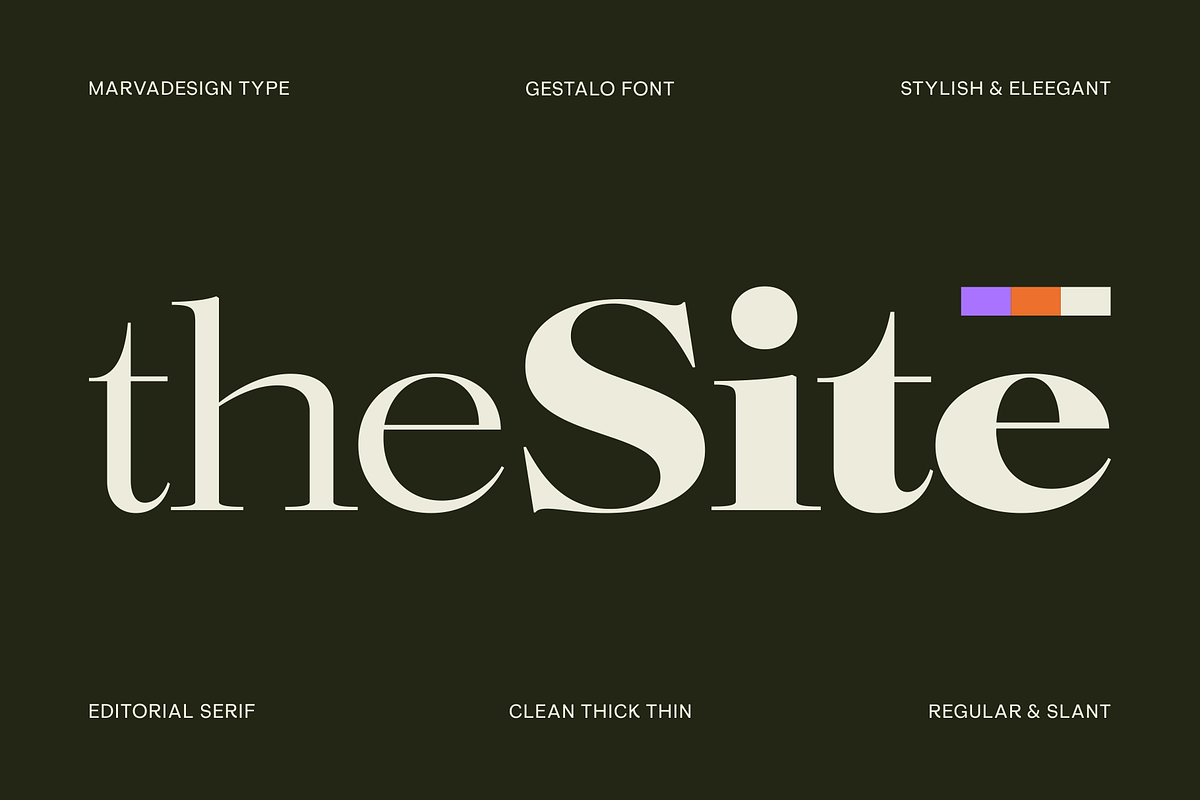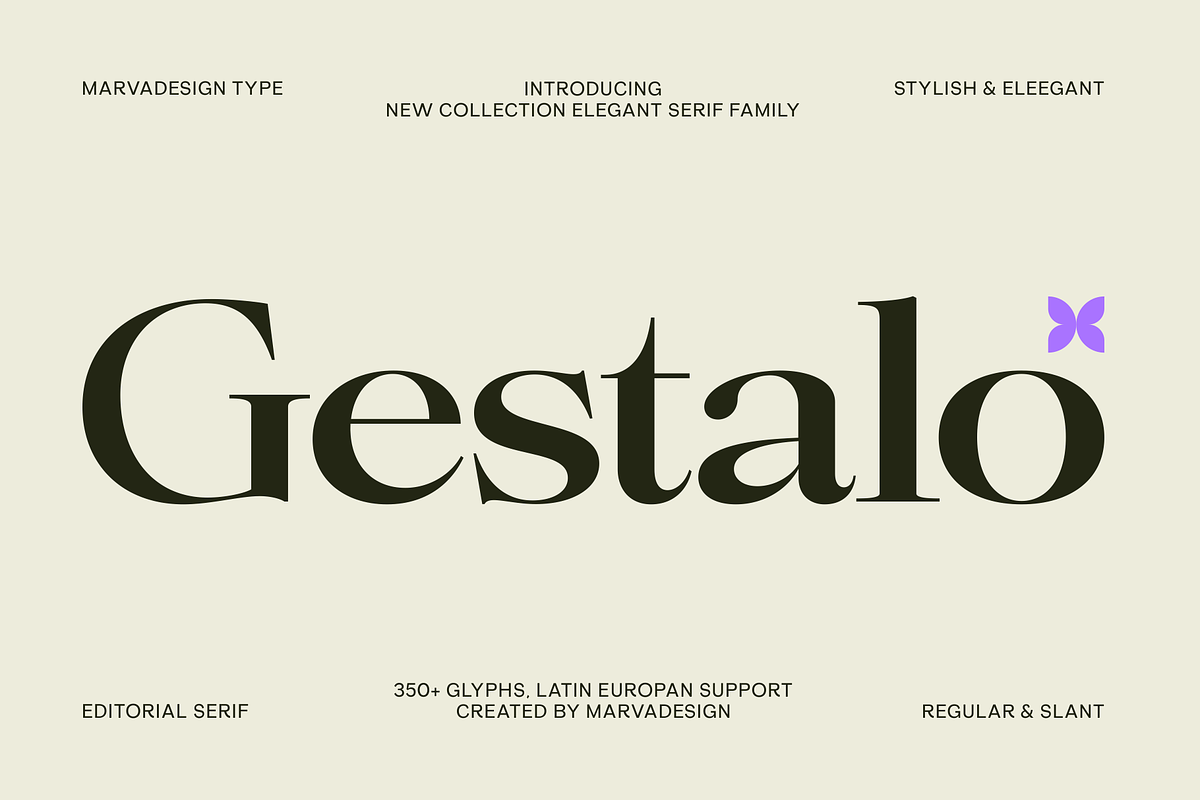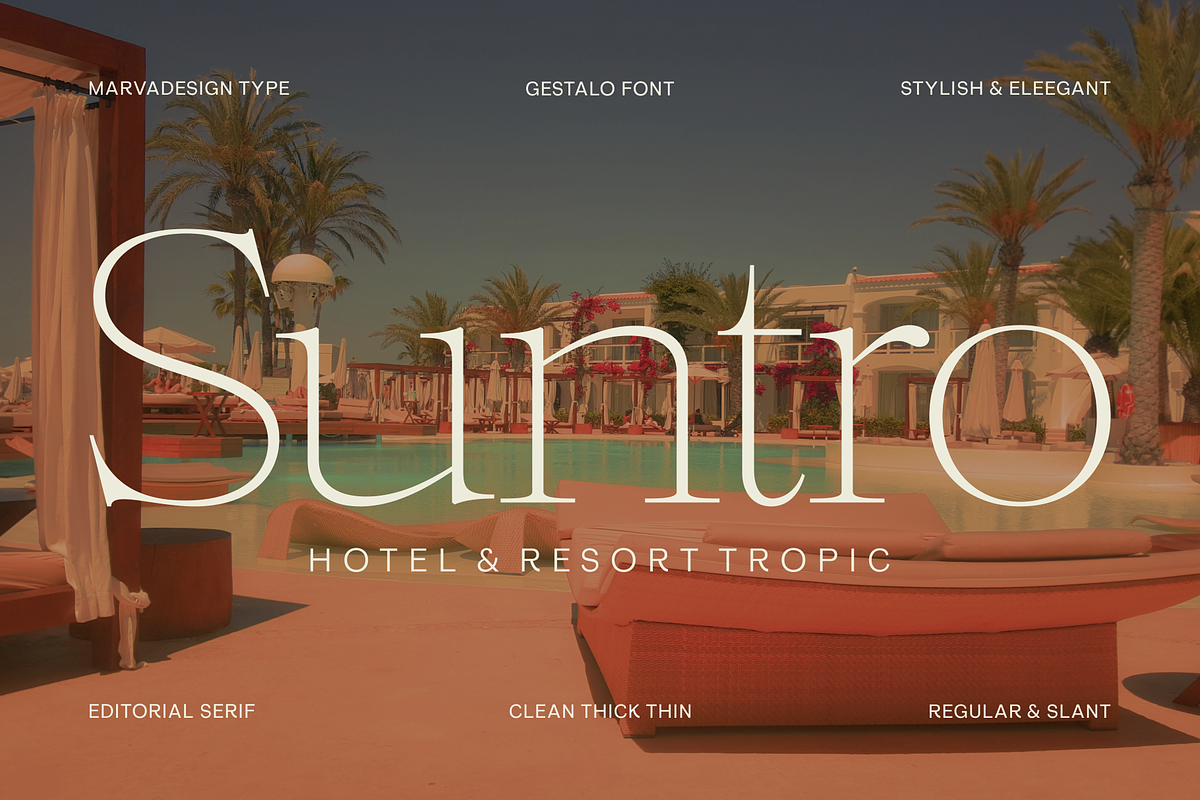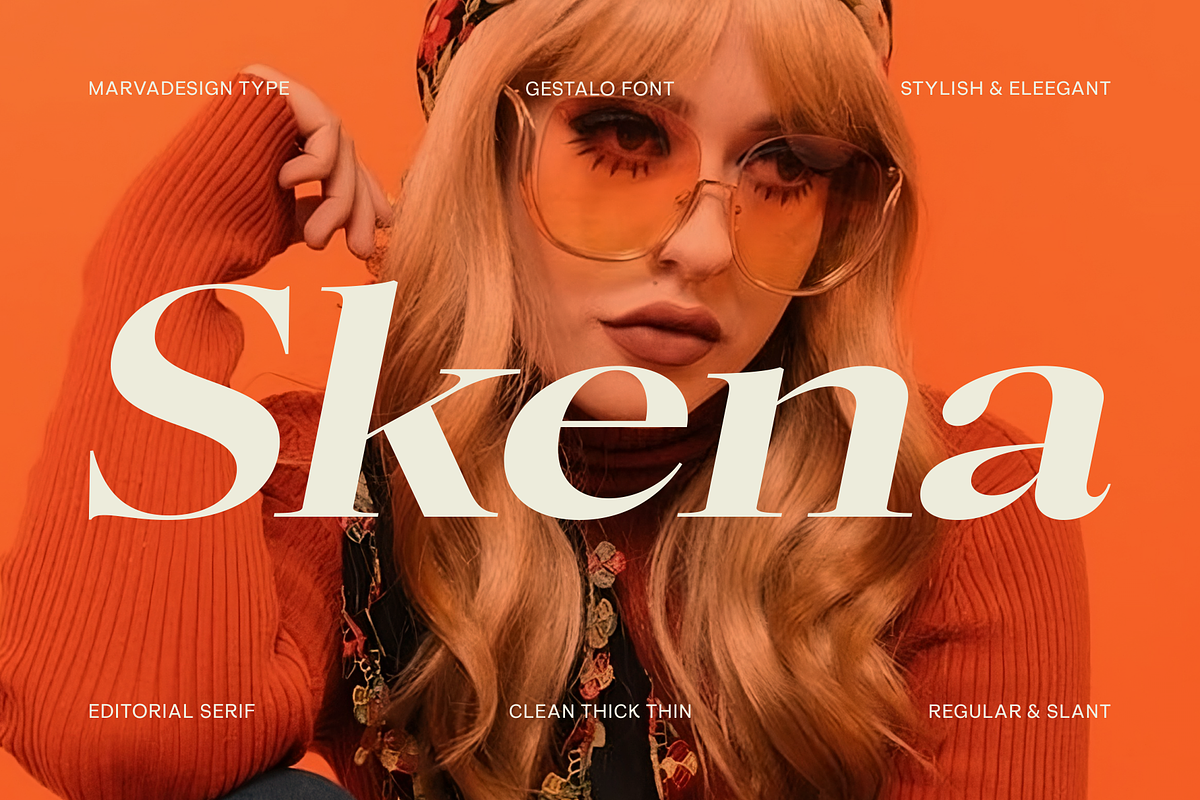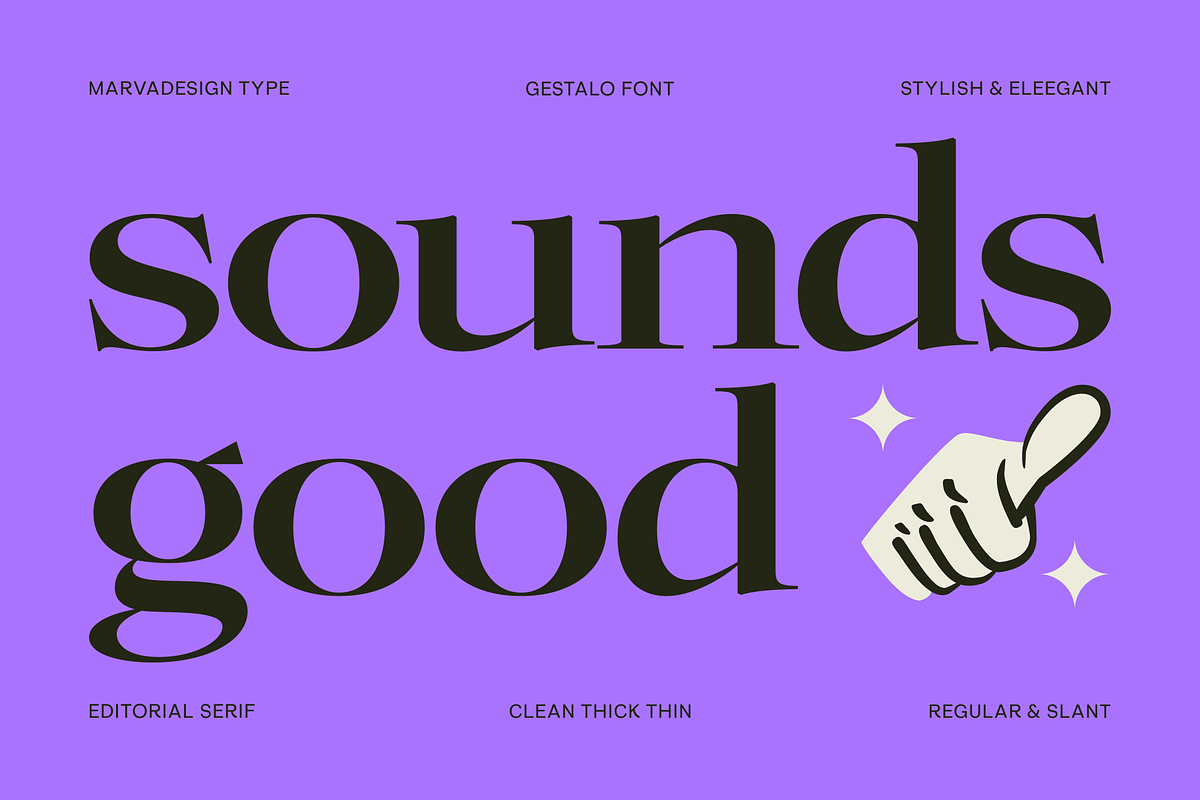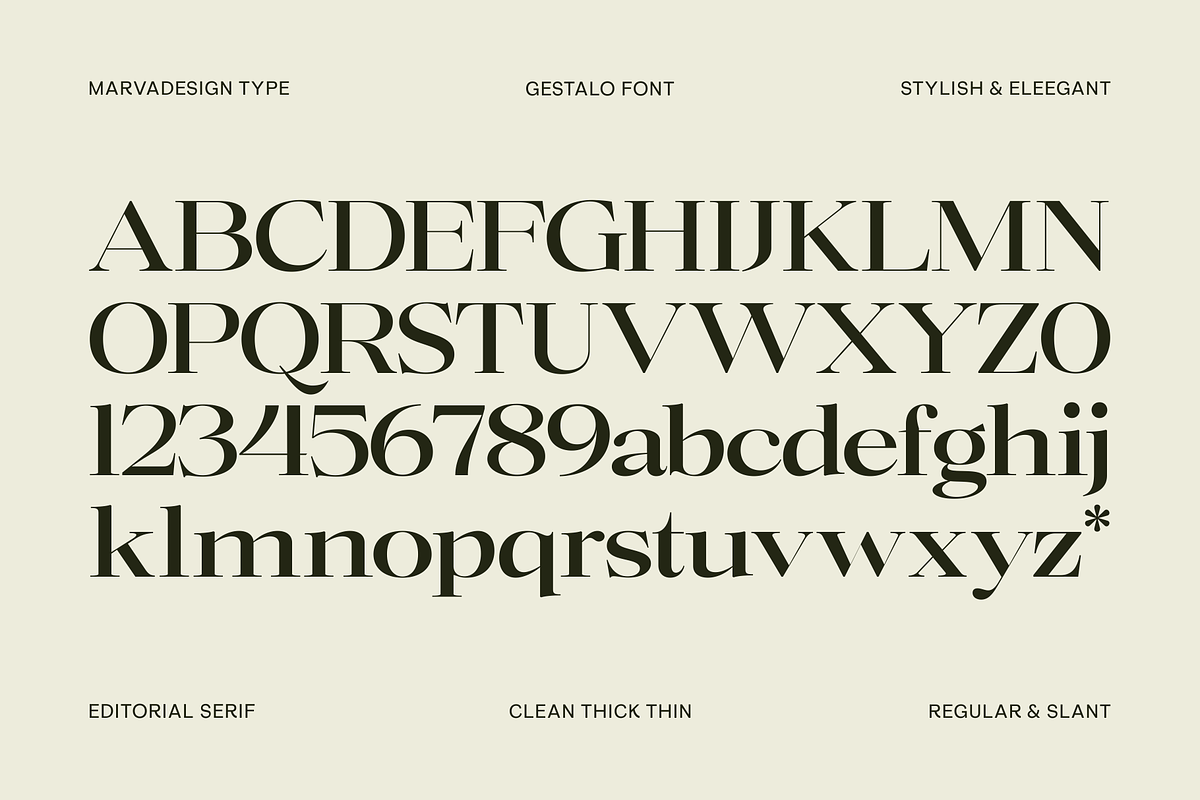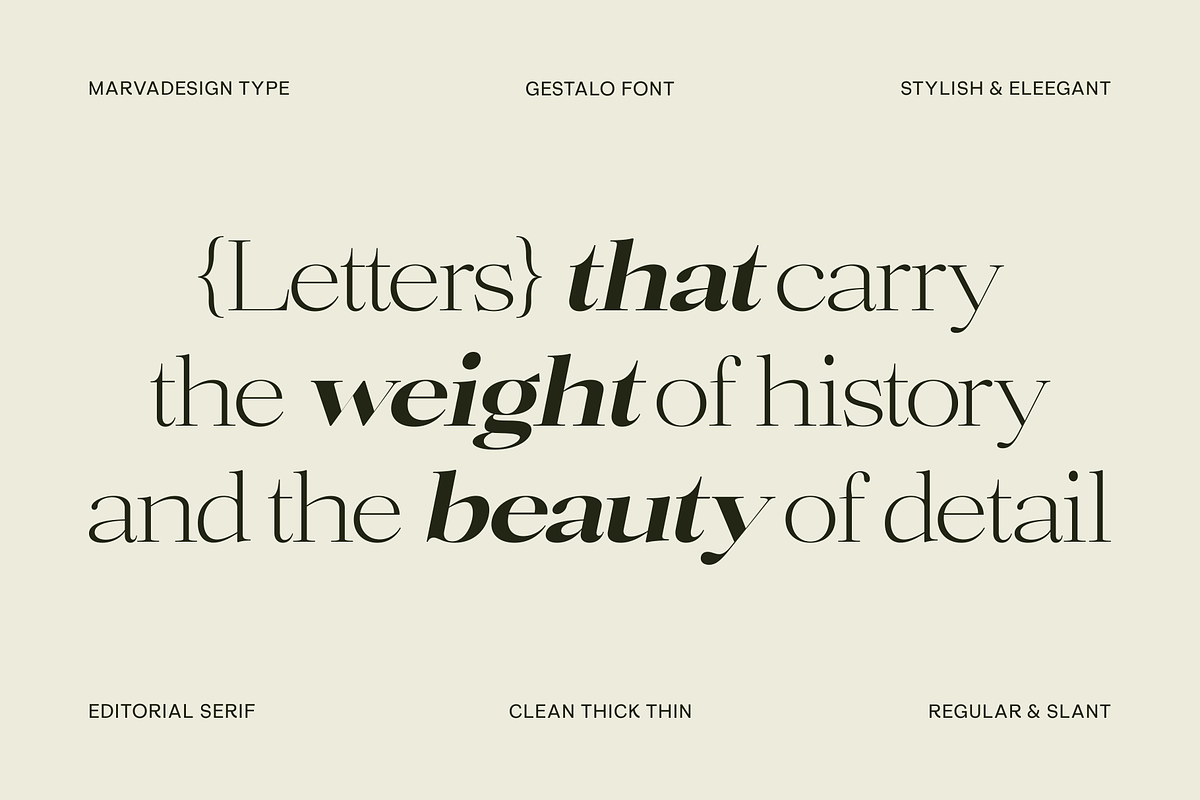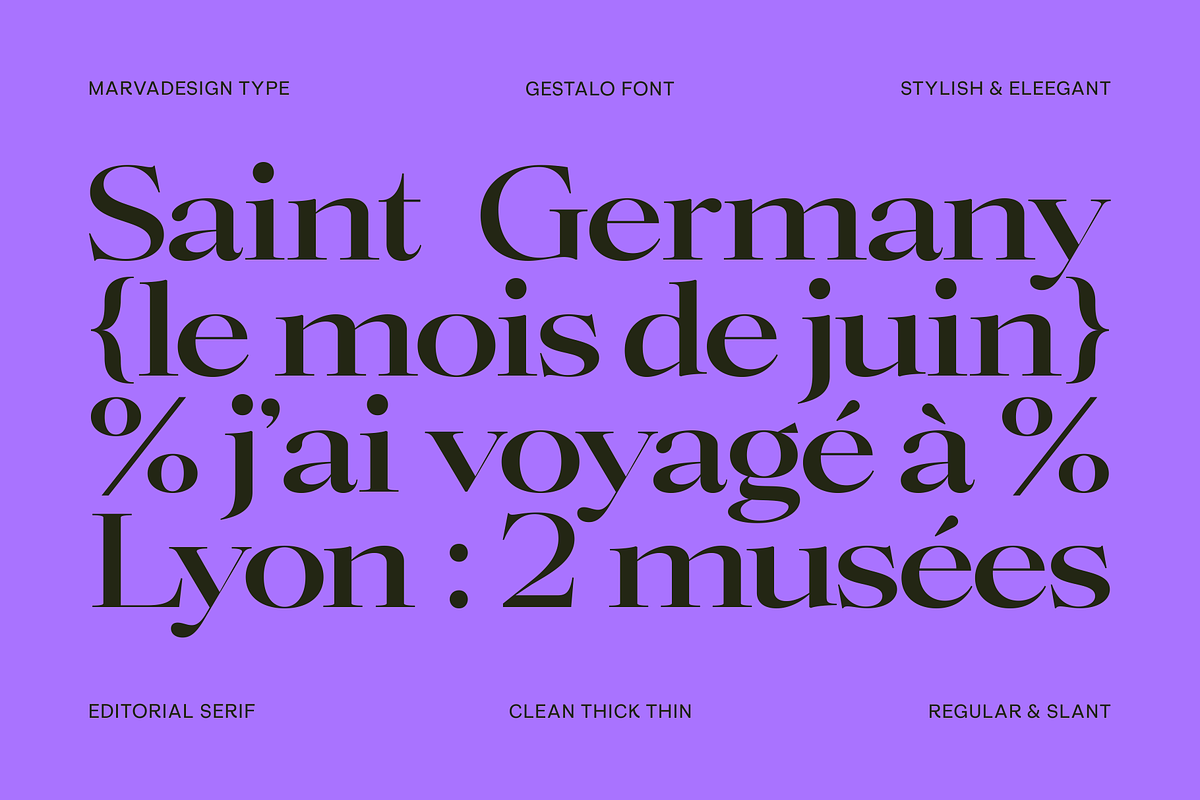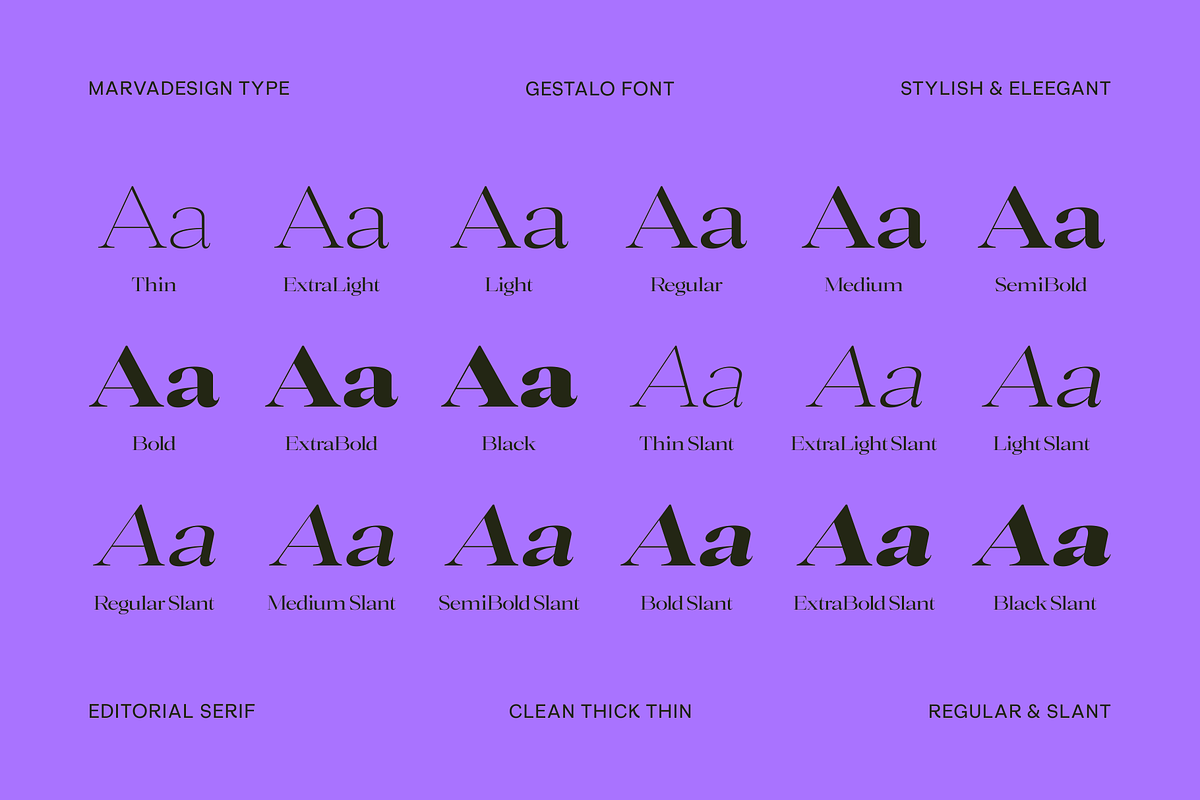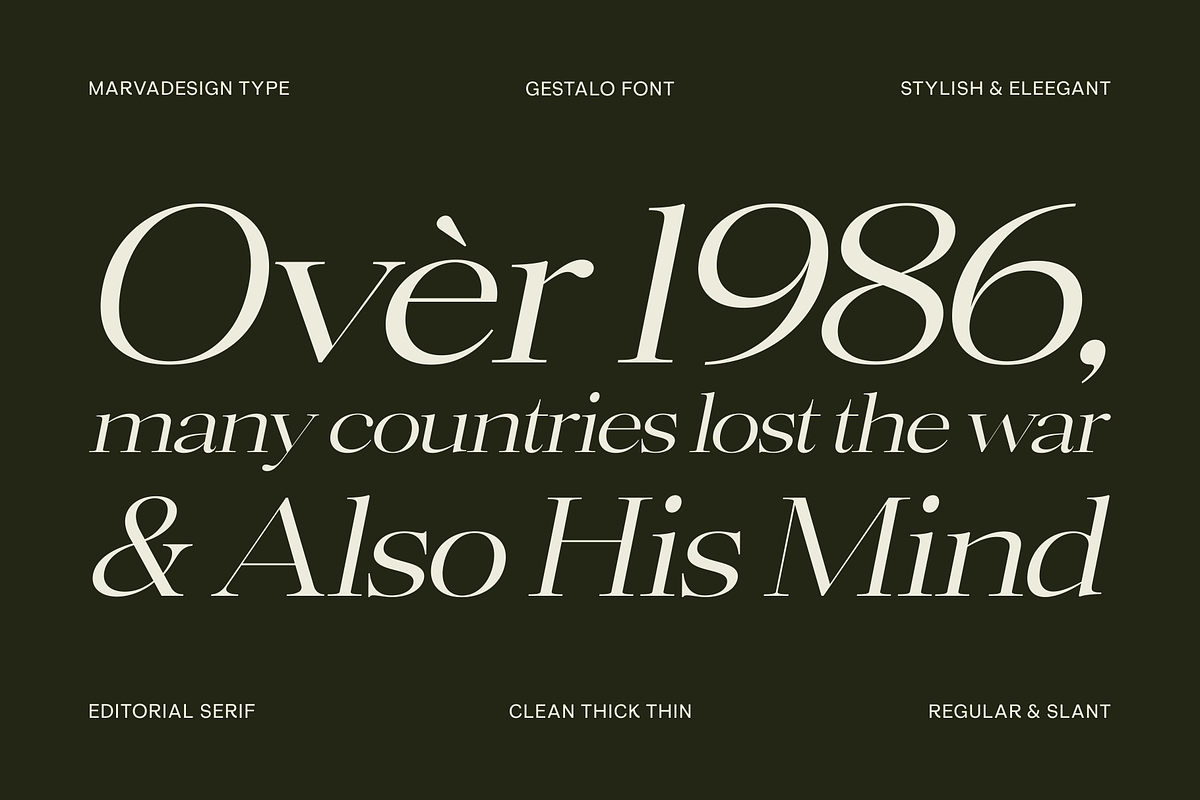
Gestalo - Elegant Family Serif
Gestalo is an elegant serif typeface that blends classic editorial charm with modern sophistication. Designed with clean contrast between thick and thin strokes, it creates a refined balance that feels both stylish and timeless. The font family offers a wide range of weights and slanted styles, making it versatile for editorial layouts, branding, and high-end design projects. With over 350 glyphs and extensive Latin European language support, Gestalo delivers both functionality and beauty. Its graceful curves, sharp serifs, and luxurious details embody a sense of elegance, making it ideal for designers who seek a typeface that carries history, sophistication, and contemporary flair in every letter.
The styles include
- Thin
- Thin Slant
- ExtraLight
- ExtraLight Slant
- Light
- Light Slant
- Regular Slant
- Medium
- Medium Slant
- SemiBold
- SemiBold Slant
- Bold
- Bold Slant
- Extra Bold
- Extra Bold ISlant
- Black
- Black Slant
- Variable